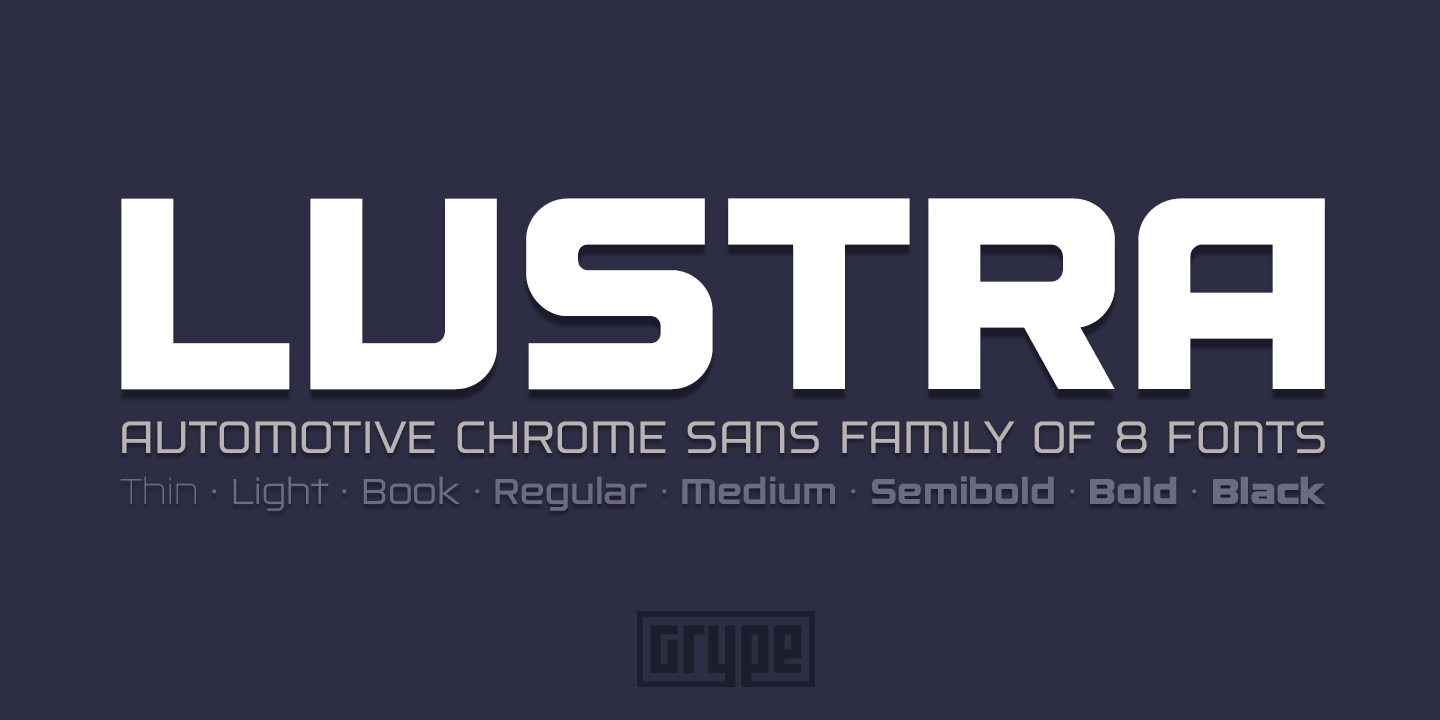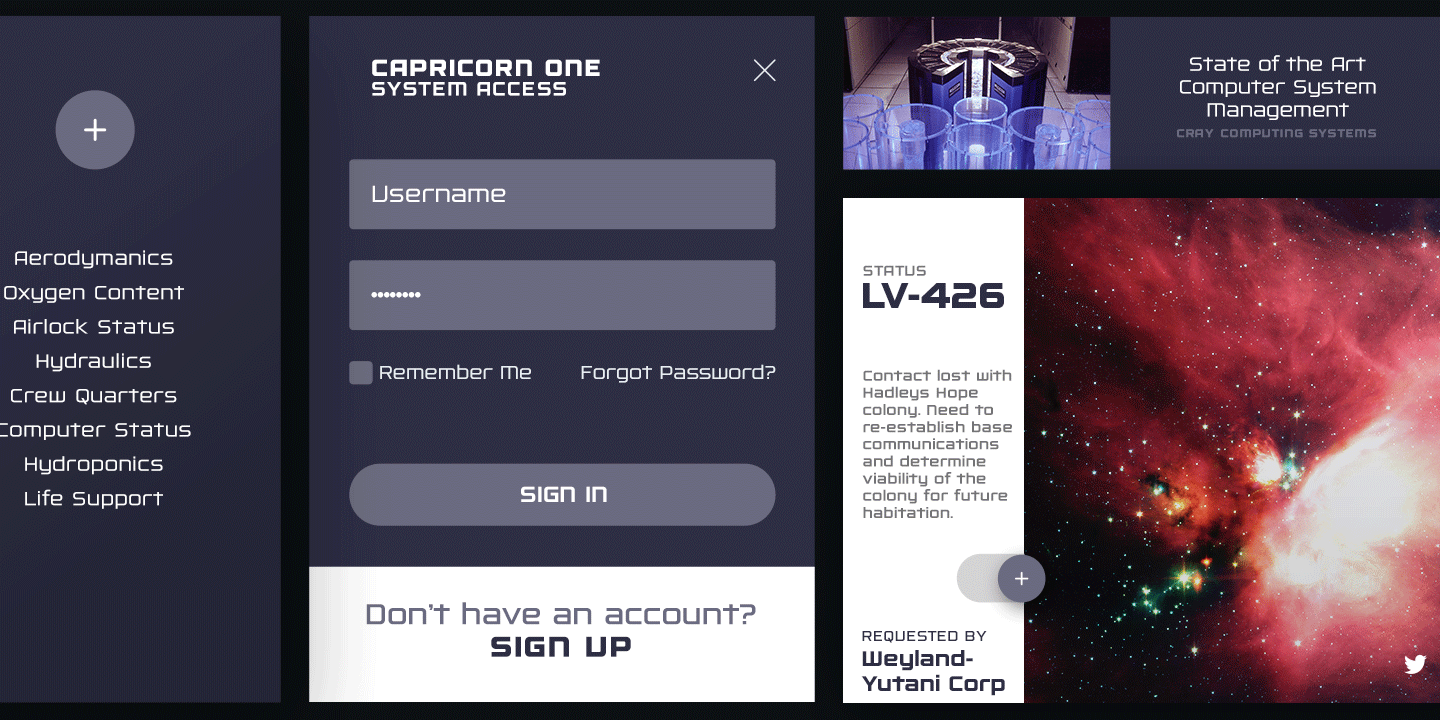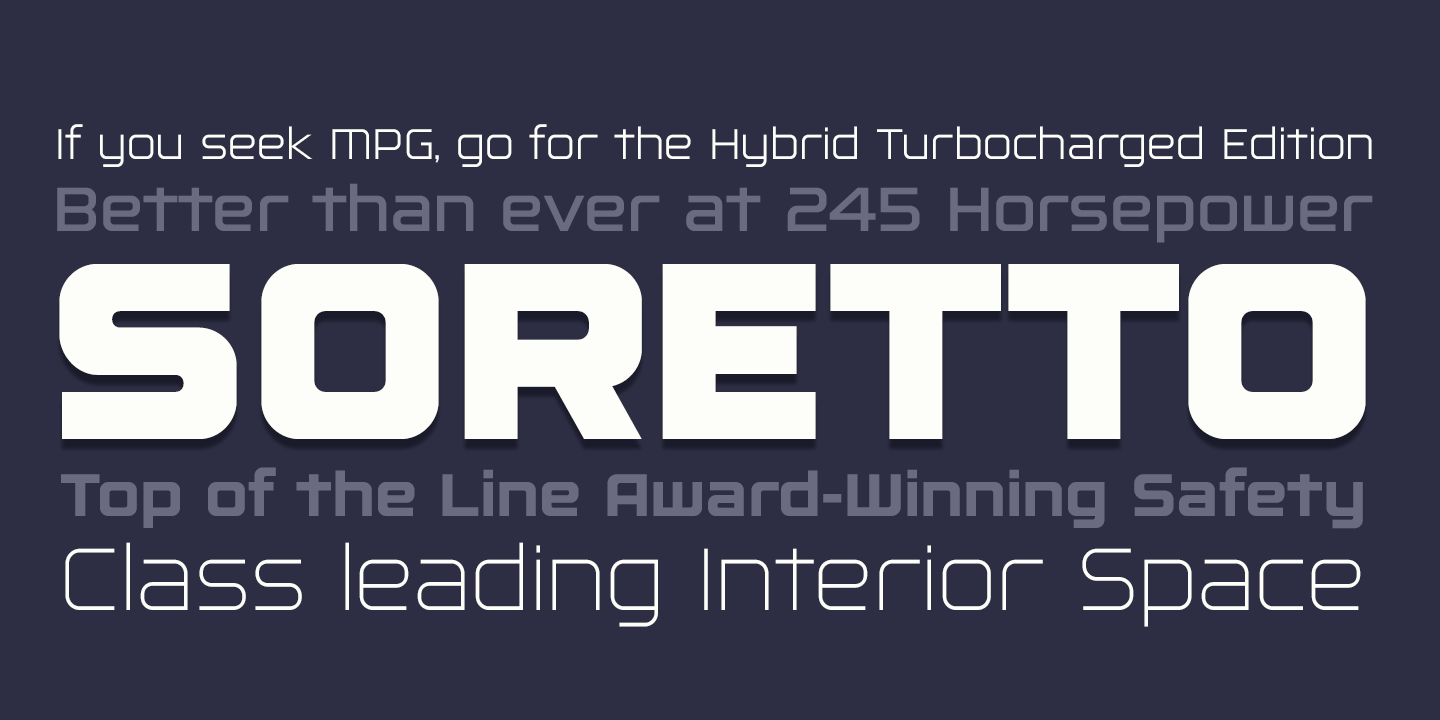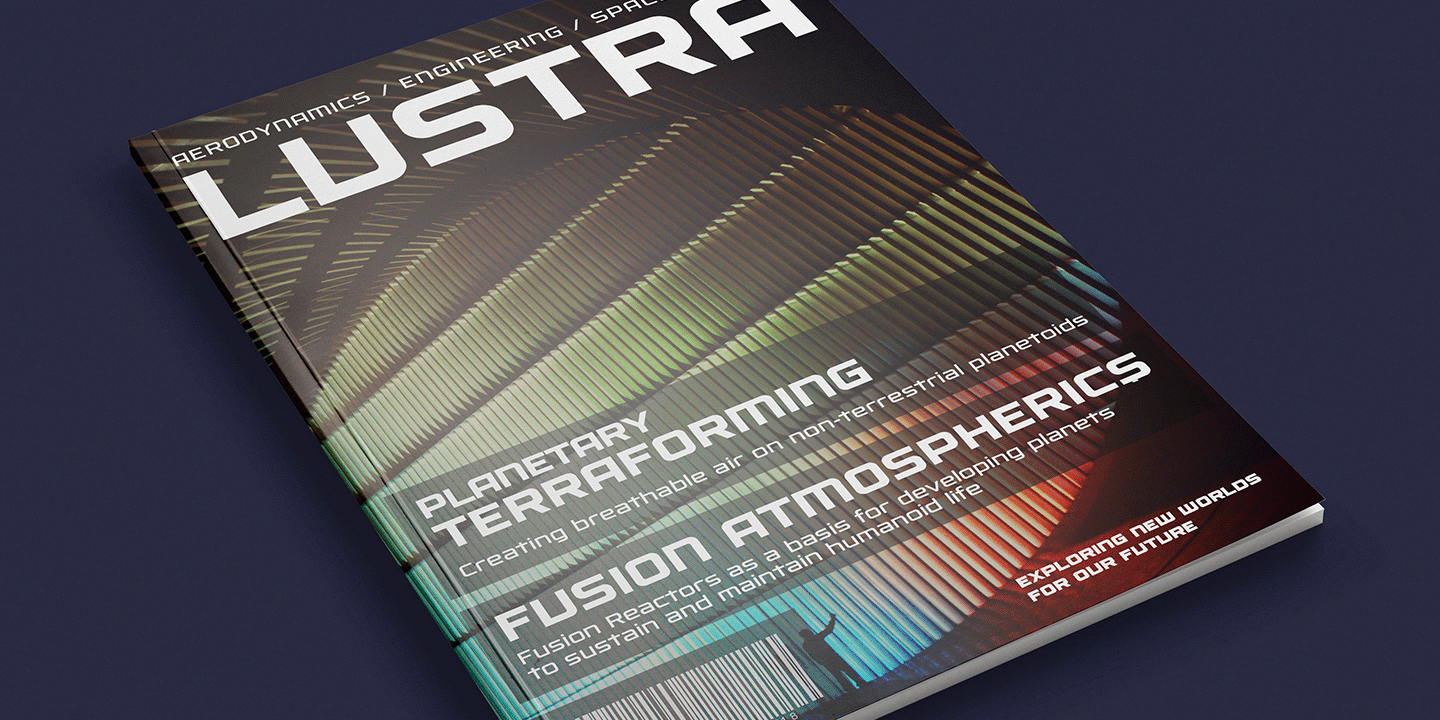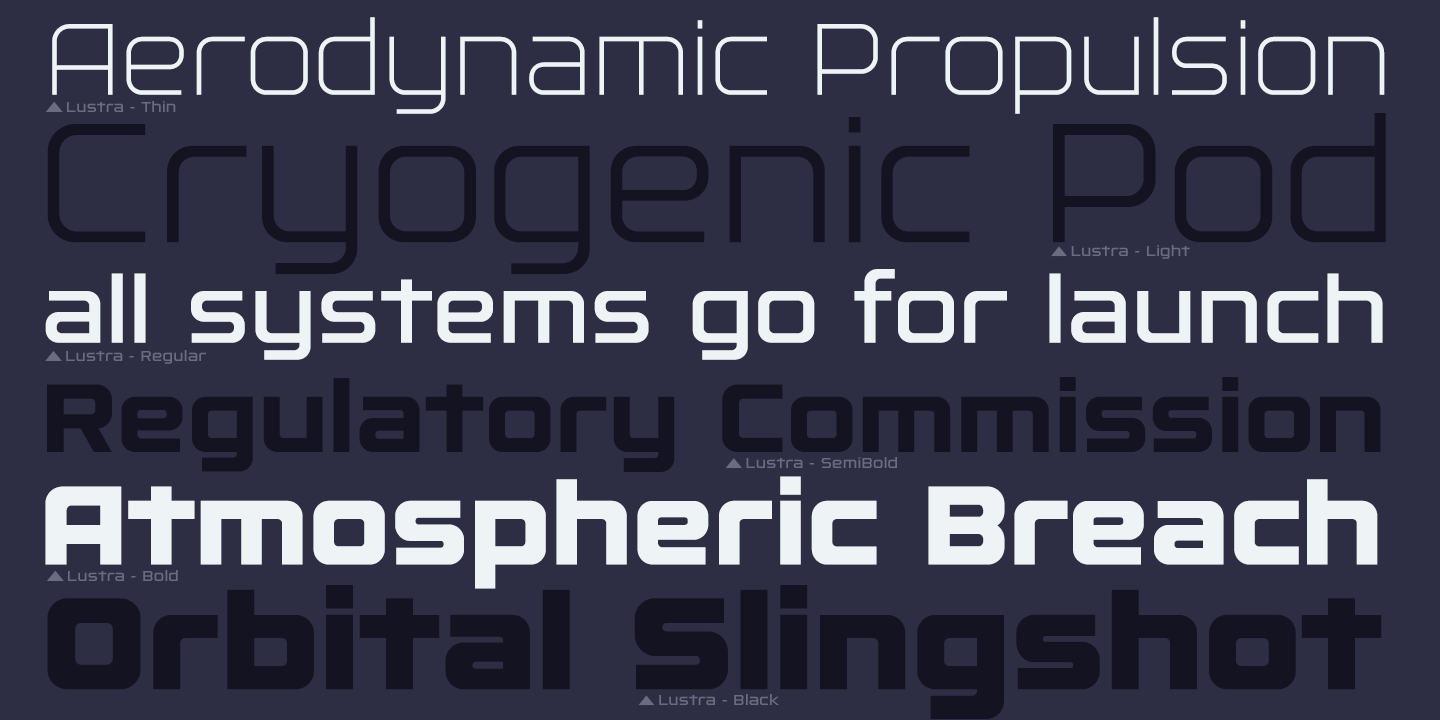
Lustra
Font Family by Grype
Since the early 1980's, the automotive industry has been developing geometric/technical style logotypes for car chrome labels. The styles are ripe with inspiration for great font families, but surprisingly, many of these sleek logotypes are lacking an expansive family to enhance and express their brand in a richer sense, becoming true brand workhorses. The Lustra family finds its origin of inspiration in the HYUNDAI automotive company logo, and from there expands to an 8 font family of weights.
Lustra celebrates the techno display styling of the inspiration logotype, transcending its brand inspired origin to give birth to a font family that pulls on modern and historical styles. It inherits a sturdy yet approachable style with its uniform stroke forms and curves, and goes on to include a lowercase, numerals, and a comprehensive range of weights, creating a straightforward, uncompromising collection of typefaces that lend a solid foundation and a broad range of expression for designers.
379 glyphs per style - including Capitals, Lowercase, Numerals, Punctuation and an extensive character set that covers multilingual support of latin based languages. 8 weights in the family: Thin, Light, Book, Regular, Medium, SemiBold, Bold, & Black.